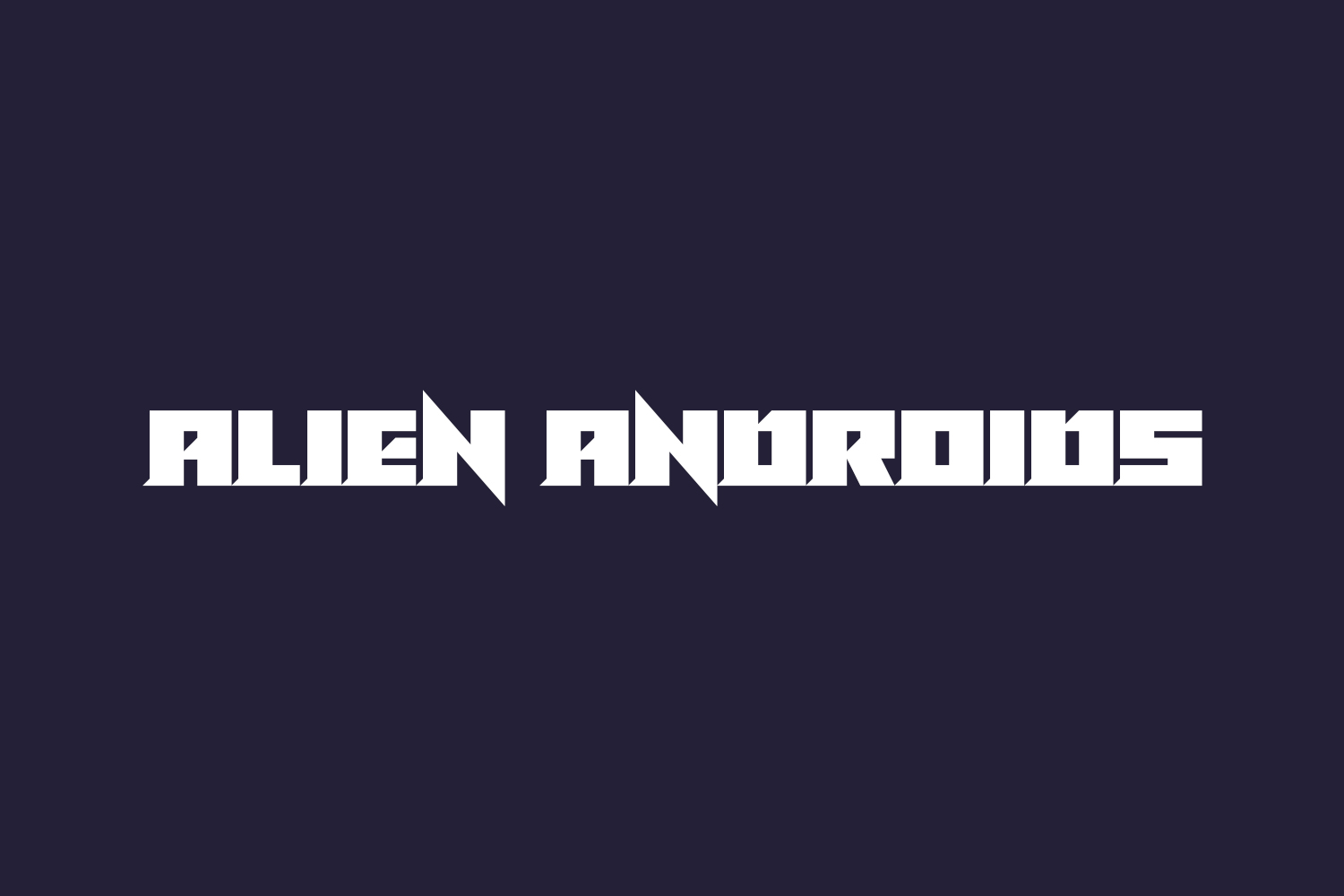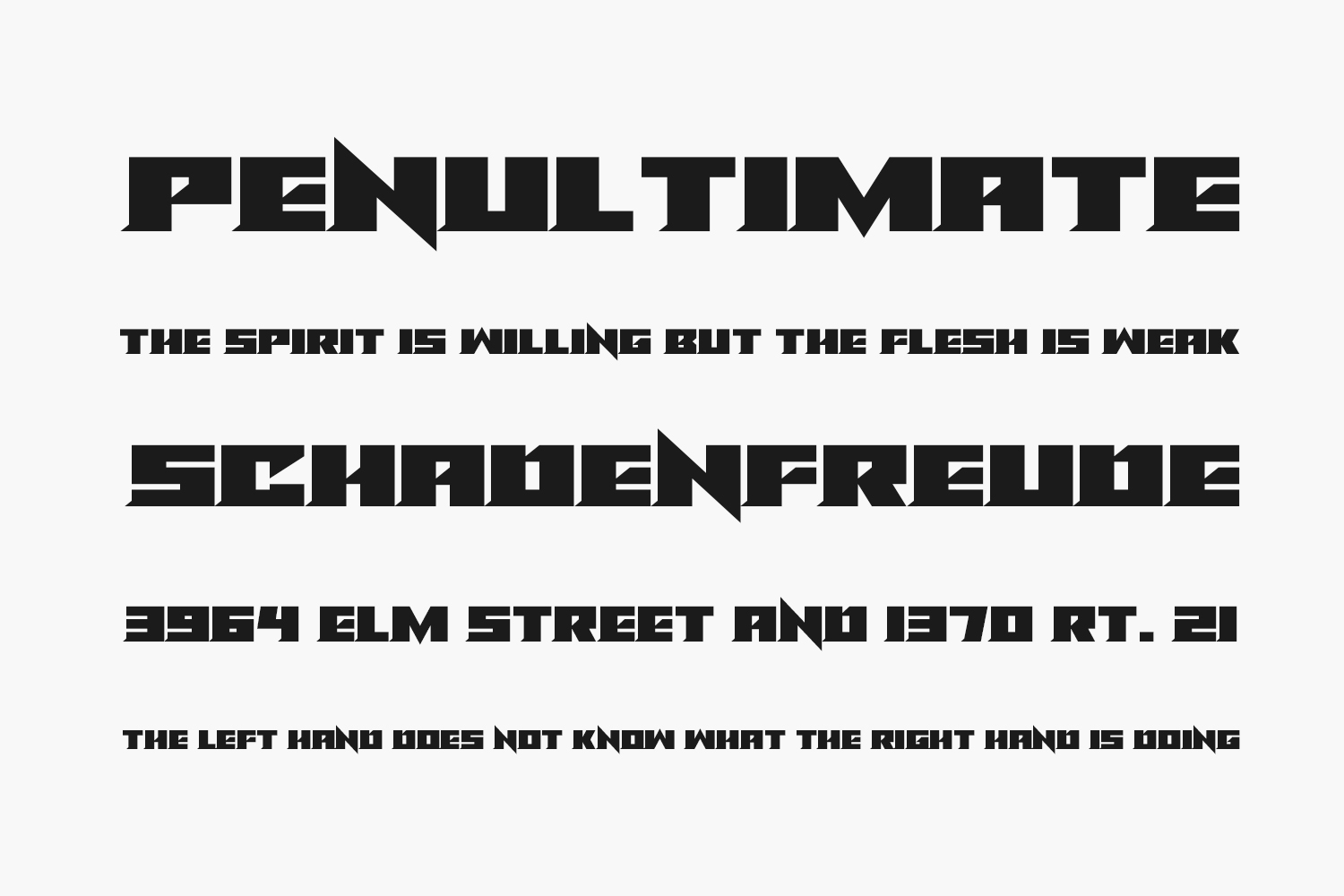
Alien Androids Free Font Family is a sharp, stylized display font in an angular, hi-tech style. Strong vertical spikes will add extra impact. Perfect for space adventures and technology-related themes. Alien Androids Free Font Family was designed by Darrell Flood and is free for personal use only. Please purchase the full version for commercial use.